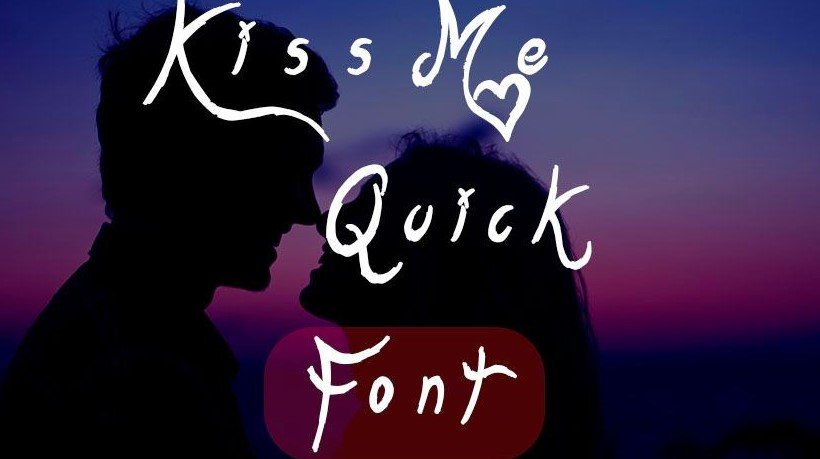
We are excited to present the highly popular Kiss Me Quick font, which is considered the best tattoo typeface. This romantic font looks fantastic in all types of projects, boasting impressive designs, signs, and textures.
This is amazing calligraphic typeface that is designed by Jonathan S. Harris.